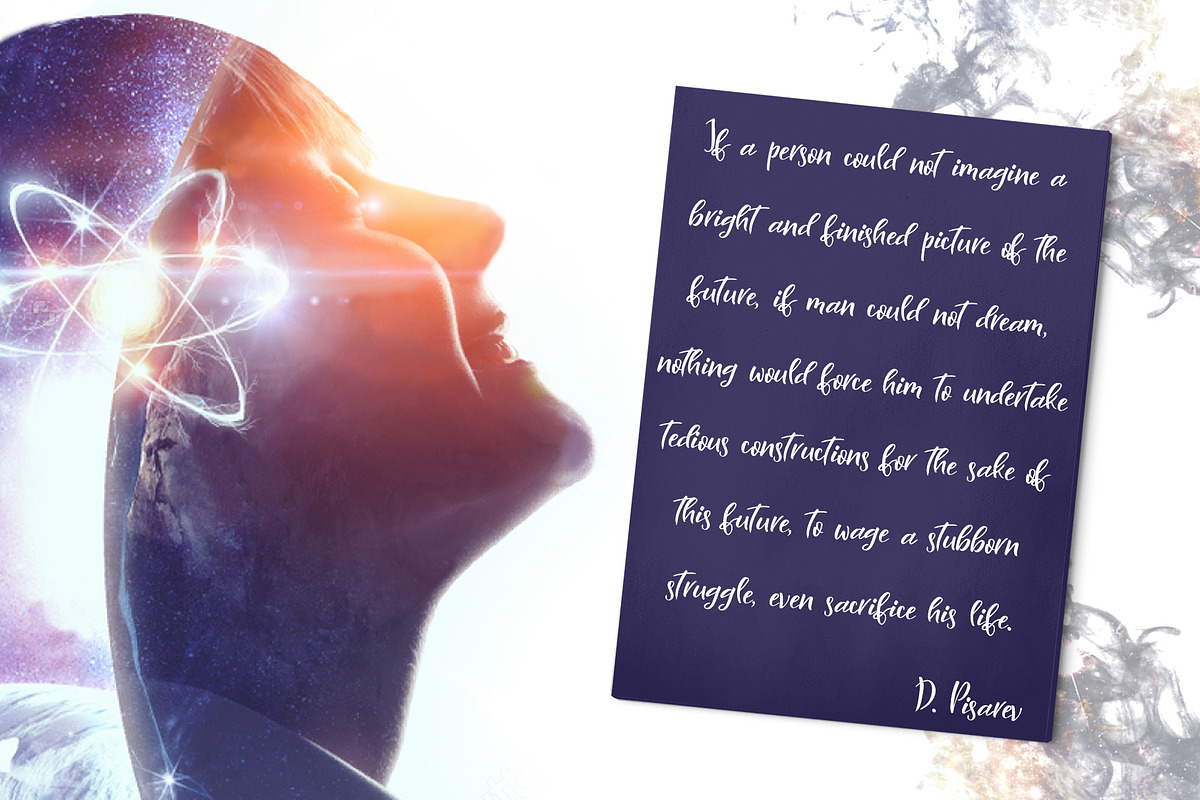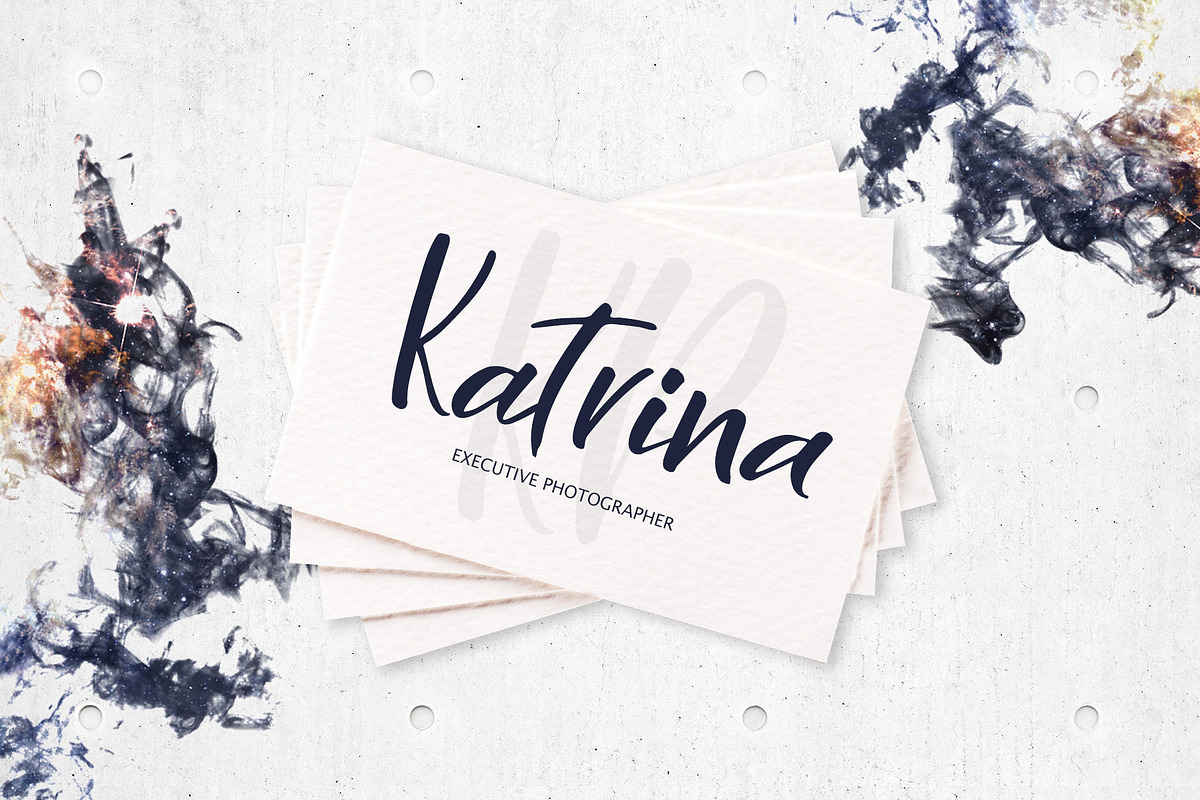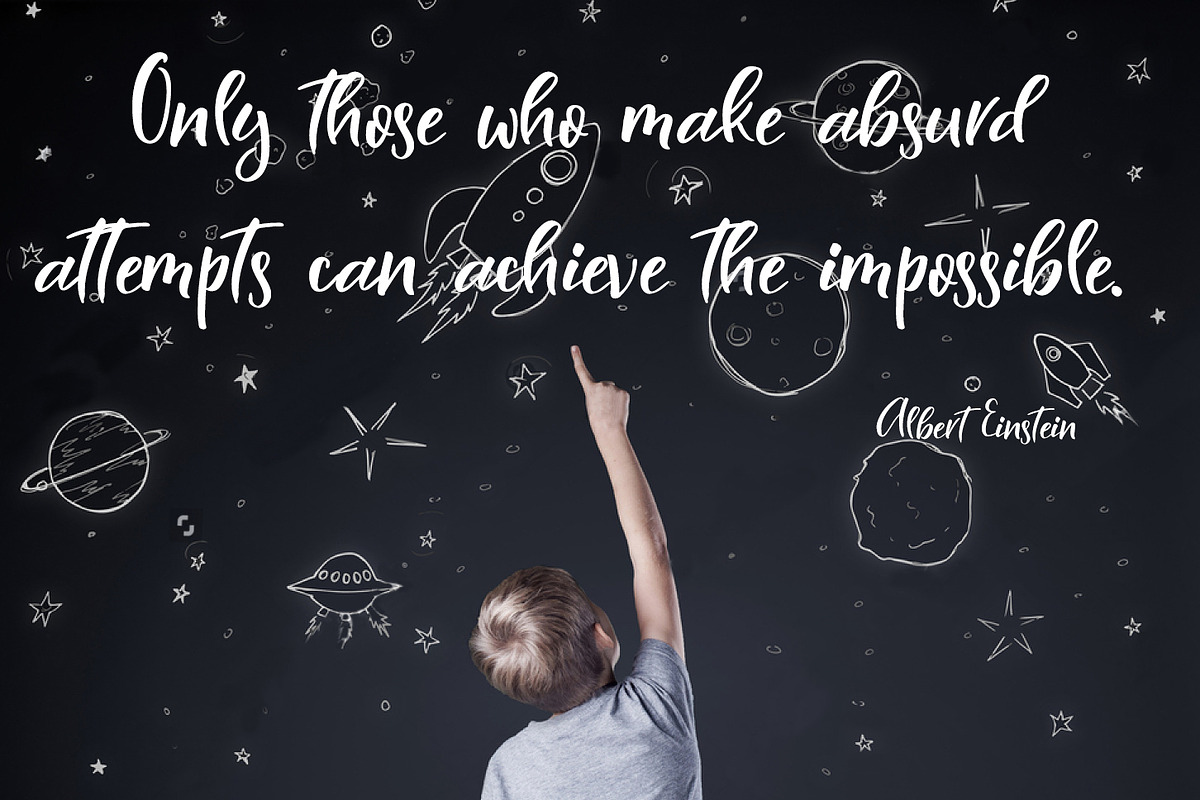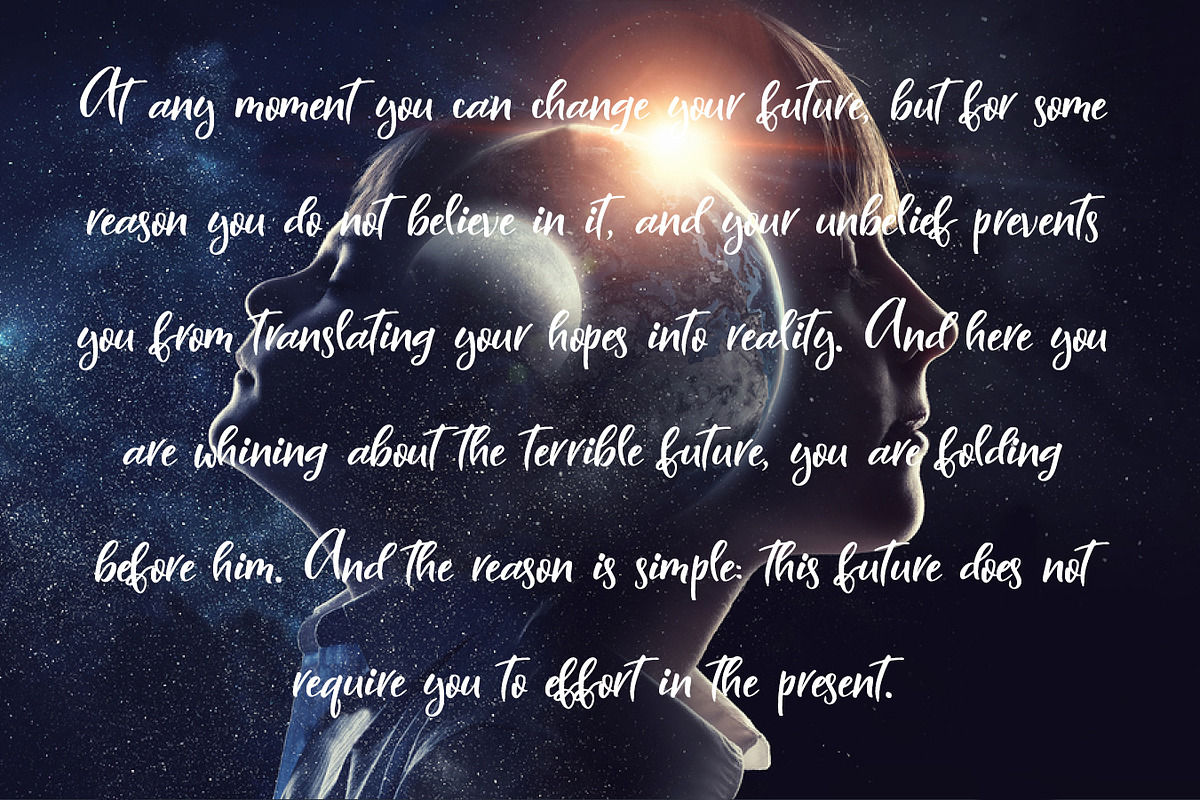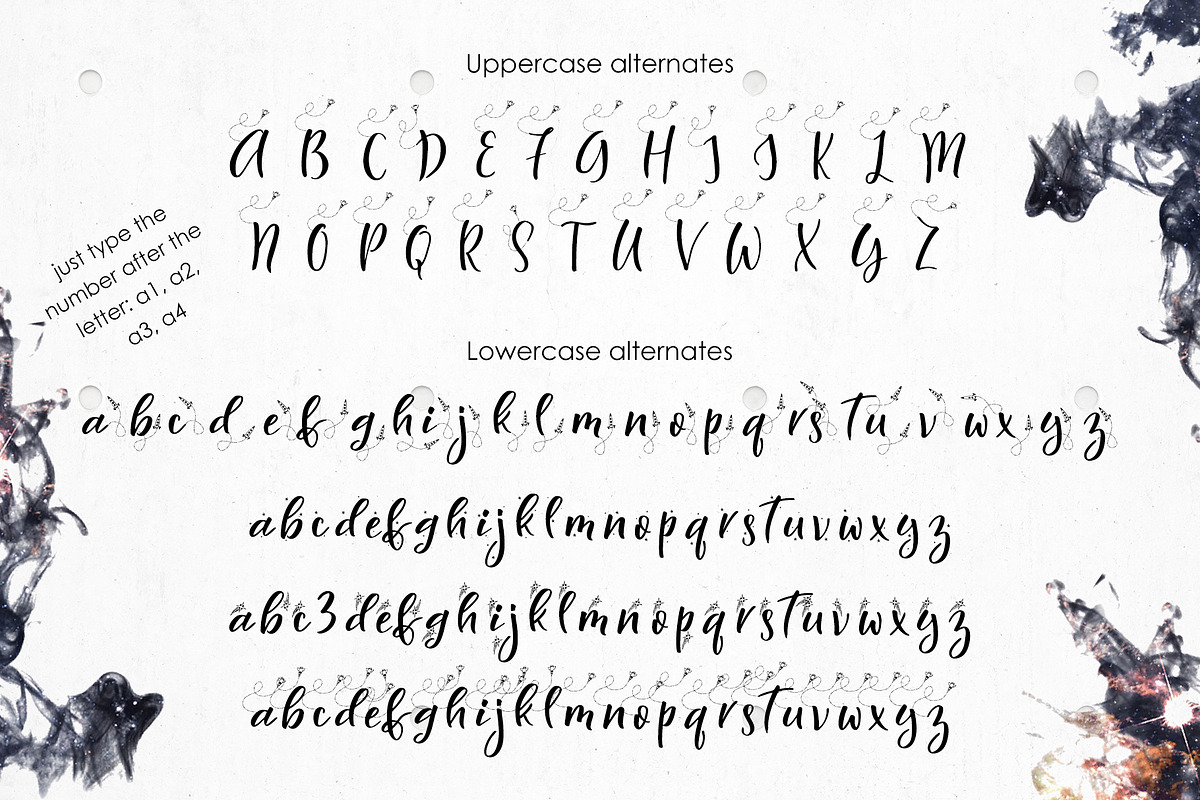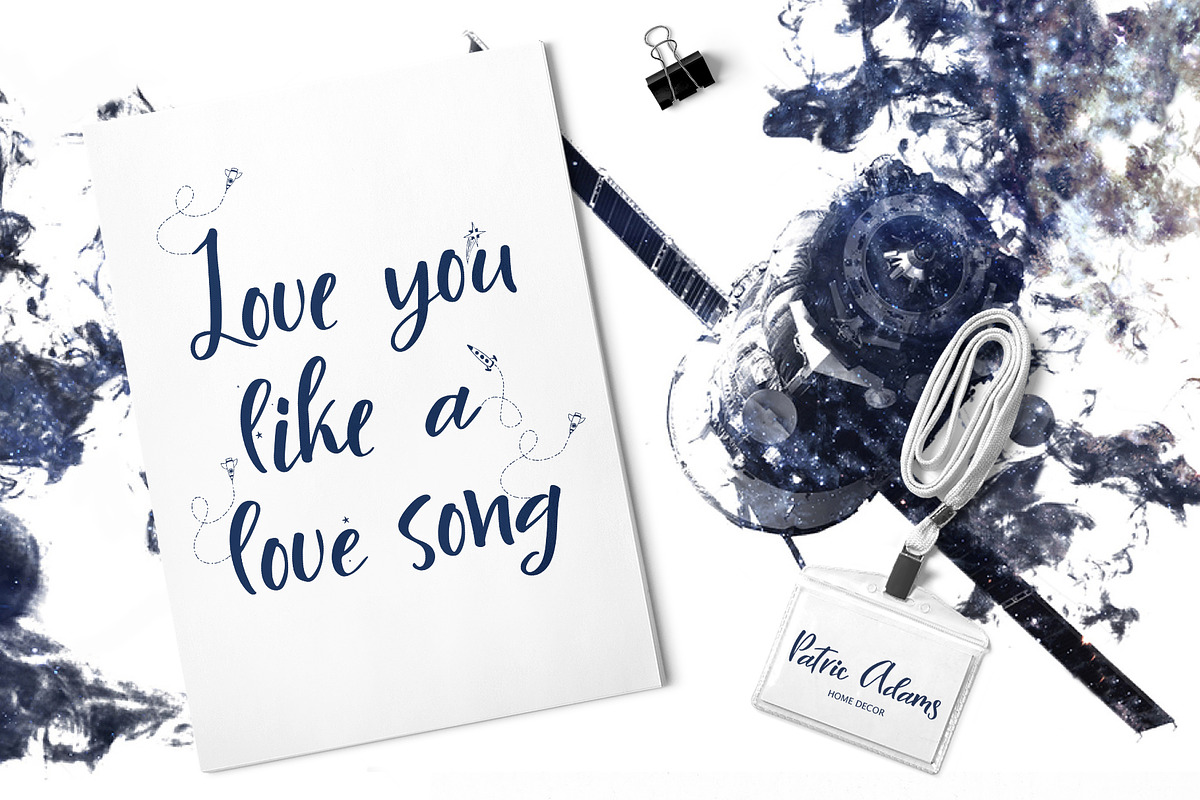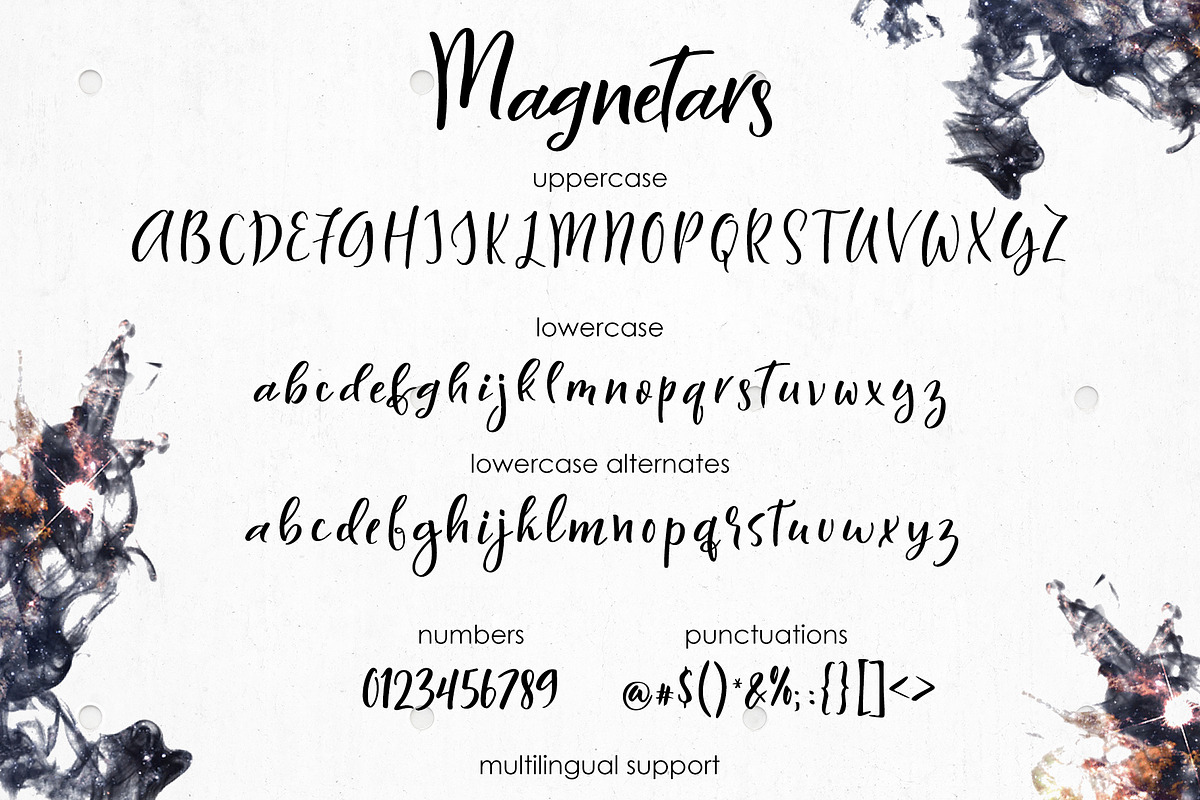
Magnetars - space font
I'm super-pleased to introduce you my new font Magnetars!
Fonts include multilingual support, available for Western European, Central European and South Eastern European Languages. You can check your language typing characters in text box below.
This is the perfect font that is suitable for all your funny designs. You can use this font for watermark on photography, signature or signature logo design, quotes, album cover, business card, and many other design project. Perfect for greetings, branding, prints, invitations, and crafting, print, t-shirt design, to personalised logos, handwritten quotes and so much more!